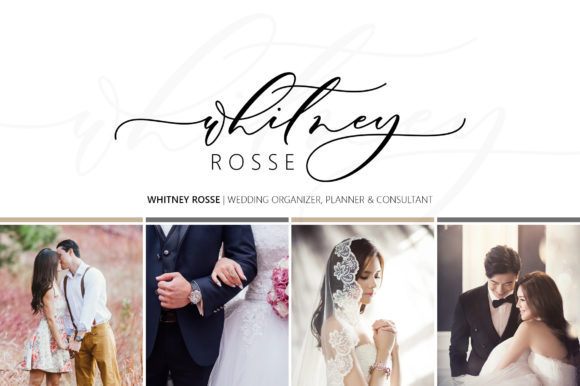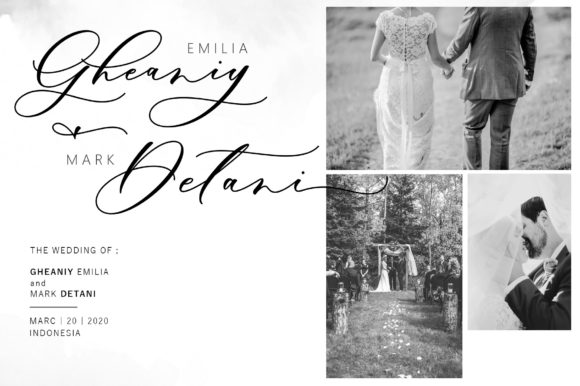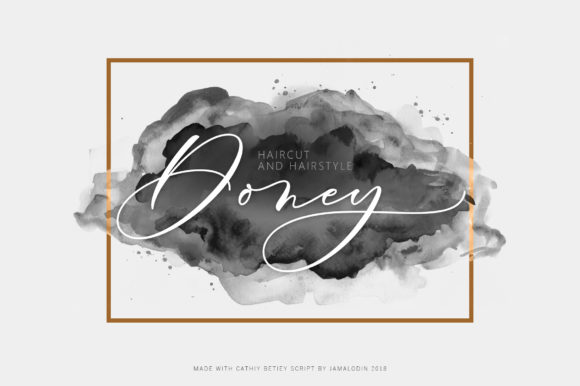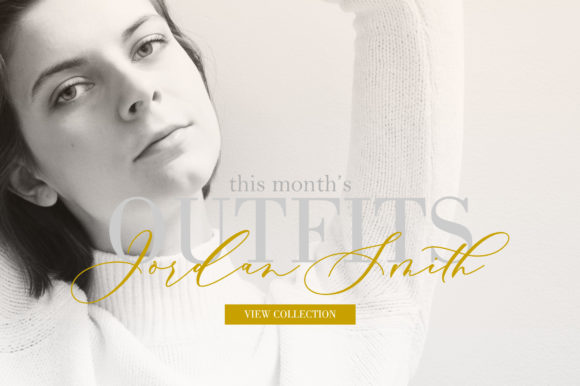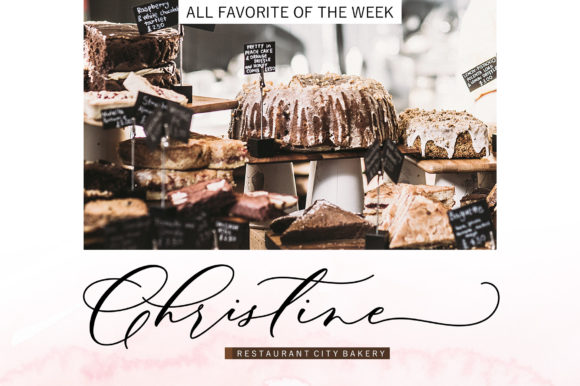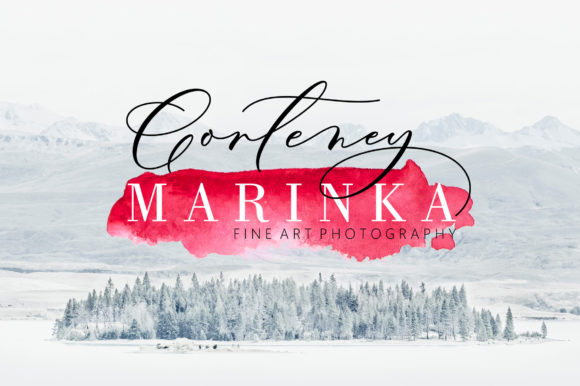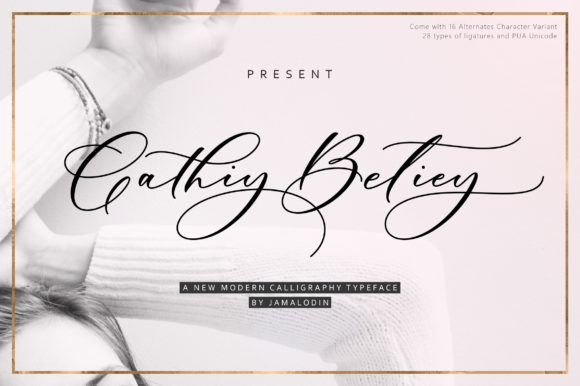
The Designer’s Delight: Unveiling the Elegance of Cathiy Betiey Font
I’ll never forget the moment I stumbled upon the perfect font for a client’s wedding invitation project. I had been scrolling through pages of font options, but nothing seemed to capture the essence of the elegant and modern aesthetic my client was looking for. That was until I discovered Cathiy Betiey – a stunning handwritten font that instantly became my go-to. In this article, I’ll share my love for this exquisite font, its features, and provide a comprehensive guide on how to make the most of it in your designs.
A Personal Review: What I Love About Cathiy Betiey
Cathiy Betiey is more than just a font – it’s a design statement. Here’s what makes it stand out:
• ✨ Exquisite Handwritten Style: The font boasts a beautiful, classy calligraphic influence that feels both contemporary and fresh.
• ✅ PUA Encoded: With PUA encoding, accessing glyphs and swashes is a breeze, giving you endless creative possibilities.
• 💫 Ease of Use: Whether you’re designing for print or digital platforms, Cathiy Betiey seamlessly integrates into your projects.
While Cathiy Betiey is a fantastic font, there are a few things to keep in mind:
• 🤔 Learning Curve: If you’re new to using OpenType features or glyphs, it might take some time to get familiar with the full range of options Cathiy Betiey offers.
• ⚠️ Legibility at Small Sizes: Like many script fonts, Cathiy Betiey may lose legibility when used at very small sizes. It’s best used at larger sizes where its details can shine.
The Story Behind Cathiy Betiey: A Designer’s Inspiration
Cathiy Betiey was crafted with love by a designer who sought to create a font that embodies both elegance and approachability. Inspired by classic calligraphy and modern handwriting, this font aims to bring a touch of sophistication to any project. The designer’s goal was to create a versatile font that could be used in a variety of contexts, from wedding invitations to branding, without losing its unique charm.
Is Cathiy Betiey suitable for body text? While Cathiy Betiey is stunning, it’s primarily designed for headlines and short texts. For body text, consider using a more straightforward, readable font.
Does Cathiy Betiey include a range of swashes and glyphs? Absolutely! Cathiy Betiey comes with a variety of swashes and glyphs, accessible through OpenType features, allowing you to customize your text.
Is Cathiy Betiey available in different weights or styles? Currently, Cathiy Betiey might be available in a single weight. Check with the font foundry for any additional styles or weights.
Cathiy Betiey is more than just a font; it’s a design companion that can elevate your projects to new heights. With its elegant style, ease of use, and extensive features, it’s no wonder it quickly becomes a favorite among designers and crafters. Whether you’re working on a wedding invitation, a brand identity, or simply exploring your creativity, Cathiy Betiey is sure to inspire and impress.